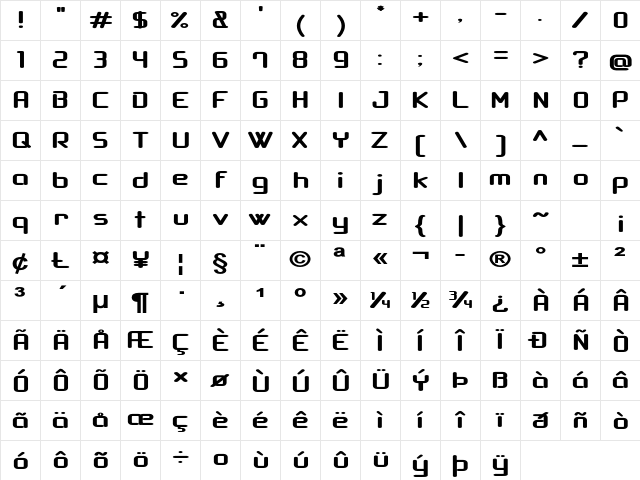
Bogboo Expanded Bold
Style: Expanded Bold
Bogboo Family
Bogboo Expanded Bold
Design Context for Bogboo
Bogboo is a composed and adaptable typeface that performs quietly and consistently across a wide range of design contexts. Its bold stroke weight gives it real presence on the page.